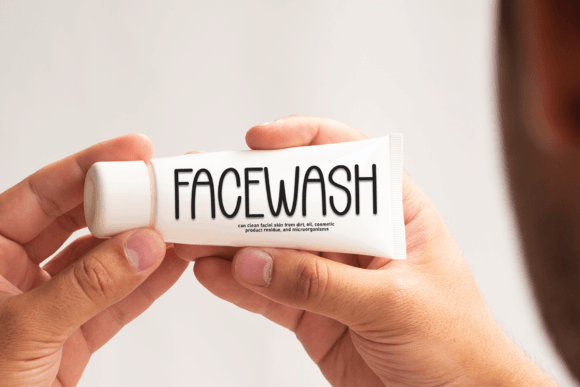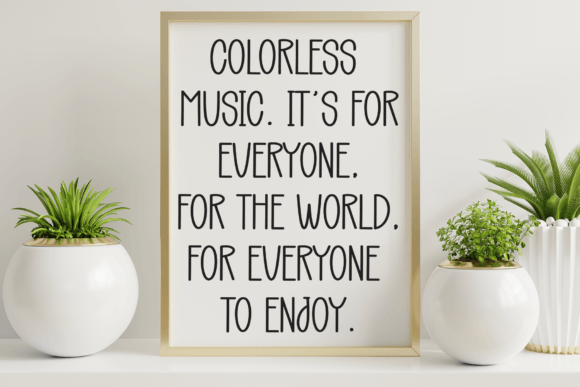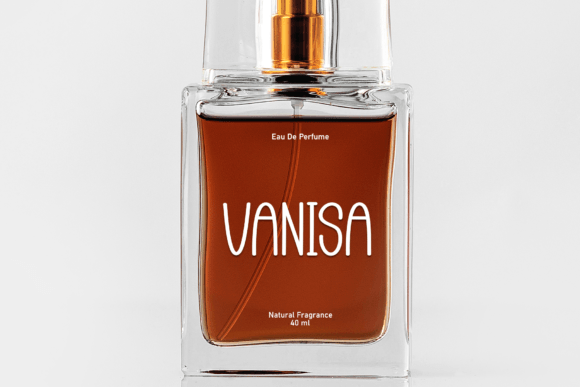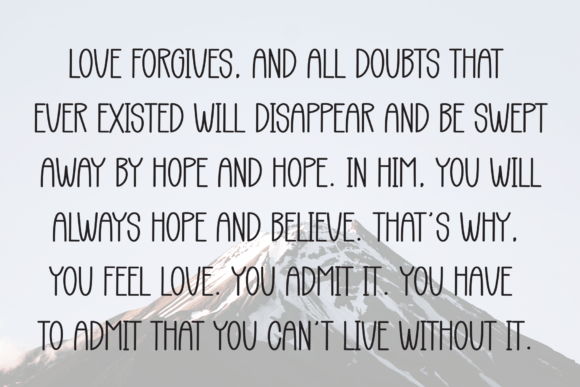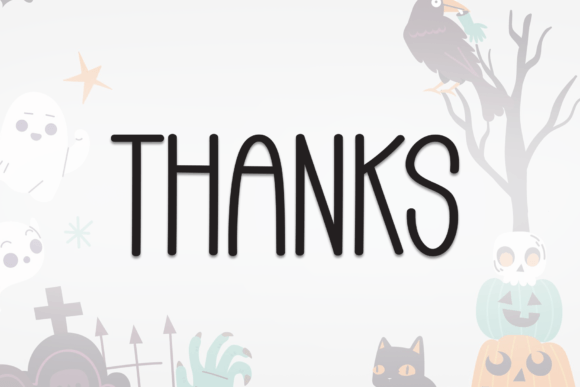
Introducing Halloween Font: Add a Spooky yet Sweet Touch to Your Designs
Are you looking for a font that can add a playful and whimsical touch to your designs? Look no further than the Halloween font! Despite its name, this font is not just limited to Halloween-themed designs. Its sweet and friendly handwritten style makes it perfect for a wide range of projects, from wedding invitations to greeting cards, and more.
What Makes Halloween Font So Special?
Halloween font is a cute and fun handwritten font that is ideal for adding a personal touch to your designs. Its unique and quirky style is sure to make your projects stand out from the crowd. Whether you’re a designer, crafter, or DIY enthusiast, this font is a must-have in your collection.
Uses of Halloween Font
One of the best things about Halloween font is its versatility. Here are some ideas for using this font in your designs:
- Wedding Invitations: Add a touch of whimsy and romance to your wedding invitations with Halloween font. It’s perfect for creating custom invitations that reflect your personality and style.
- Greeting Cards: Create custom greeting cards for birthdays, holidays, and other special occasions with Halloween font. Its playful style is sure to bring a smile to the recipient’s face.
- Party Decorations: Use Halloween font to create custom party decorations, such as banners, garlands, and signs. It’s perfect for adding a personal touch to your party decor.
- DIY Crafts: Halloween font is also perfect for DIY crafters. Use it to create custom labels, tags, and other embellishments for your crafts.
Why Designers Love Halloween Font
Designers love Halloween font for its unique and playful style. Here are some reasons why:
- Unique Style: Halloween font has a one-of-a-kind style that is sure to make your designs stand out from the crowd.
- Easy to Read: Despite its playful style, Halloween font is easy to read and understand. This makes it perfect for use in body text and other large blocks of text.
- Customizable: Halloween font is highly customizable, making it easy to pair with other fonts and design elements.
Tips for Using Halloween Font
Here are some tips for using Halloween font in your designs:
- Pair with Other Fonts: Halloween font pairs well with other fonts, such as sans-serif fonts and script fonts. Experiment with different pairings to find the one that works best for your design.
- Use in Moderation: While Halloween font is playful and fun, it can be overwhelming if used in large blocks of text. Use it in moderation to add a touch of whimsy to your designs.
- Experiment with Colors: Halloween font looks great in a variety of colors. Experiment with different colors to find the one that works best for your design.
In conclusion, Halloween font is a sweet and friendly handwritten font that is perfect for adding a playful touch to your designs. Its unique style and versatility make it a must-have for designers, crafters, and DIY enthusiasts. Whether you’re creating wedding invitations, greeting cards, or party decorations, Halloween font is sure to make your projects stand out from the crowd.